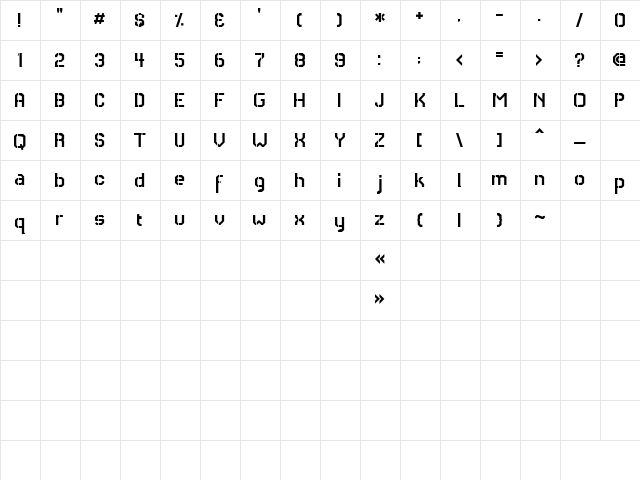
RH Carrier Stencil Regular
Design Context for RH Carrier Stencil Typeface
RH Carrier Stencil borrows the utilitarian aesthetic of stencil lettering, with its characteristic cutaways and no-frills construction lending an industrial edge.
Ideal for industrial branding, streetwear, military-adjacent aesthetics, and urban signage projects.
Pro Tip: Pair RH Carrier Stencil with raw, utilitarian design elements — exposed concrete textures, flat colour, and minimal ornamentation suit it well.